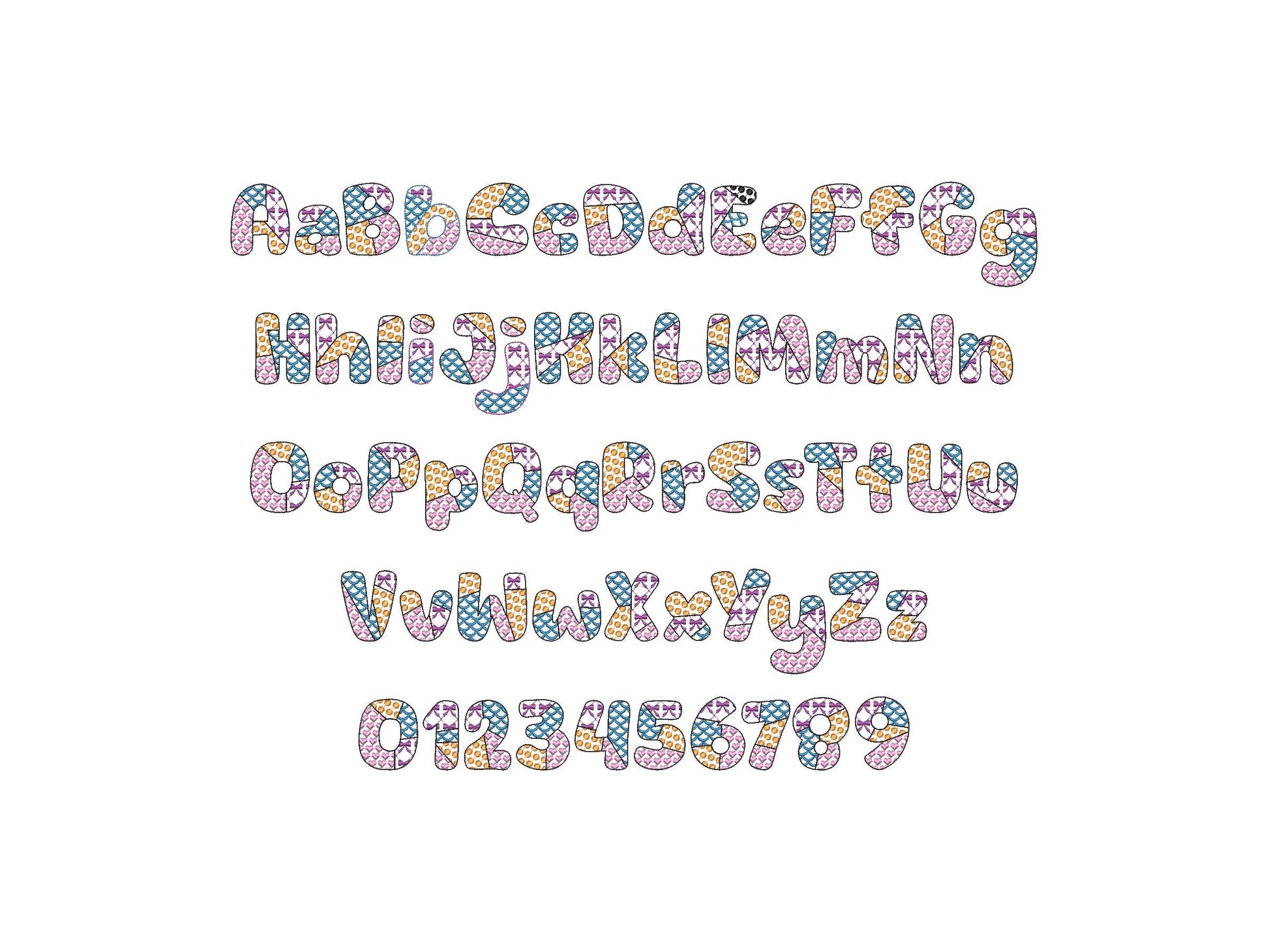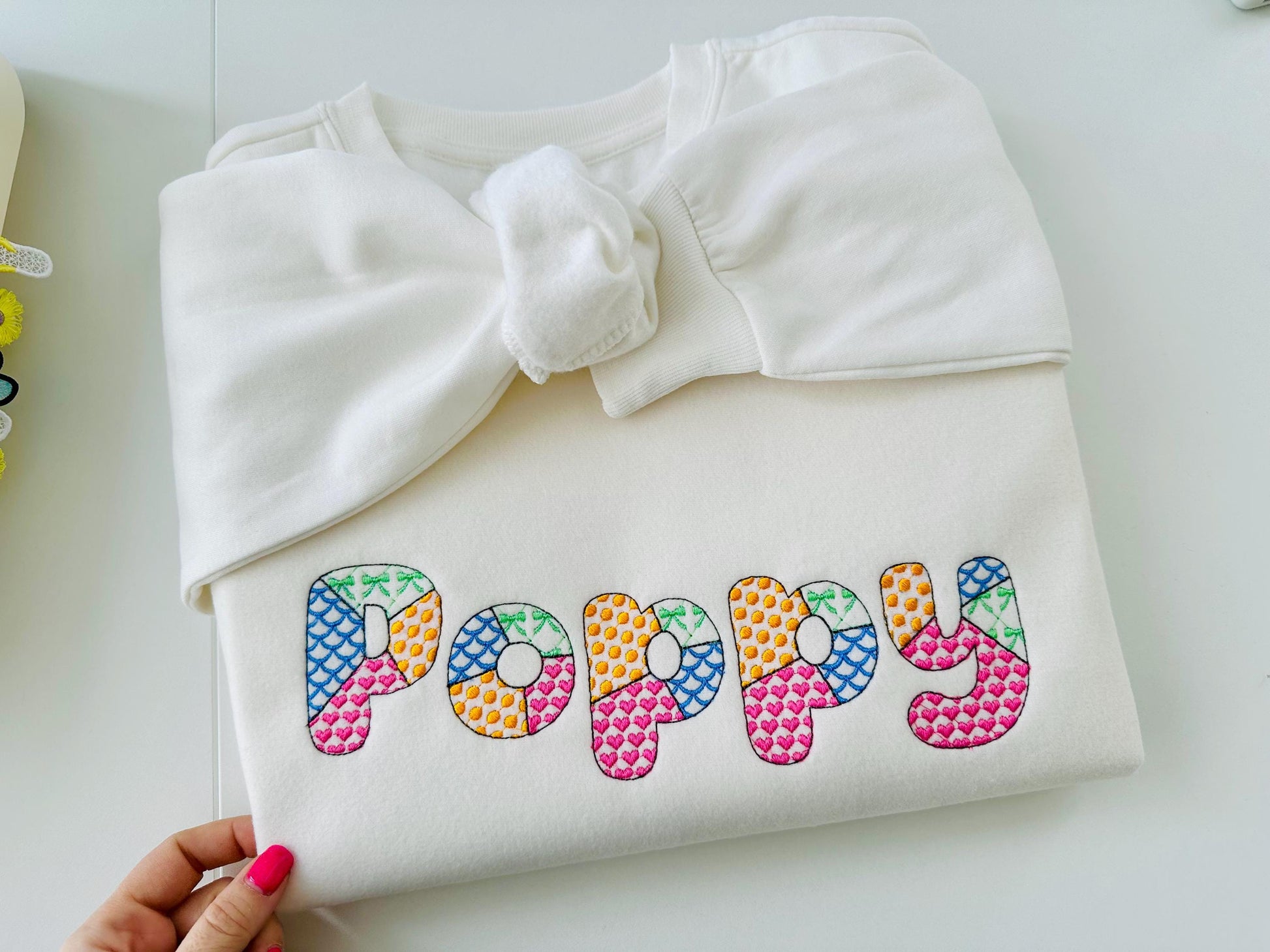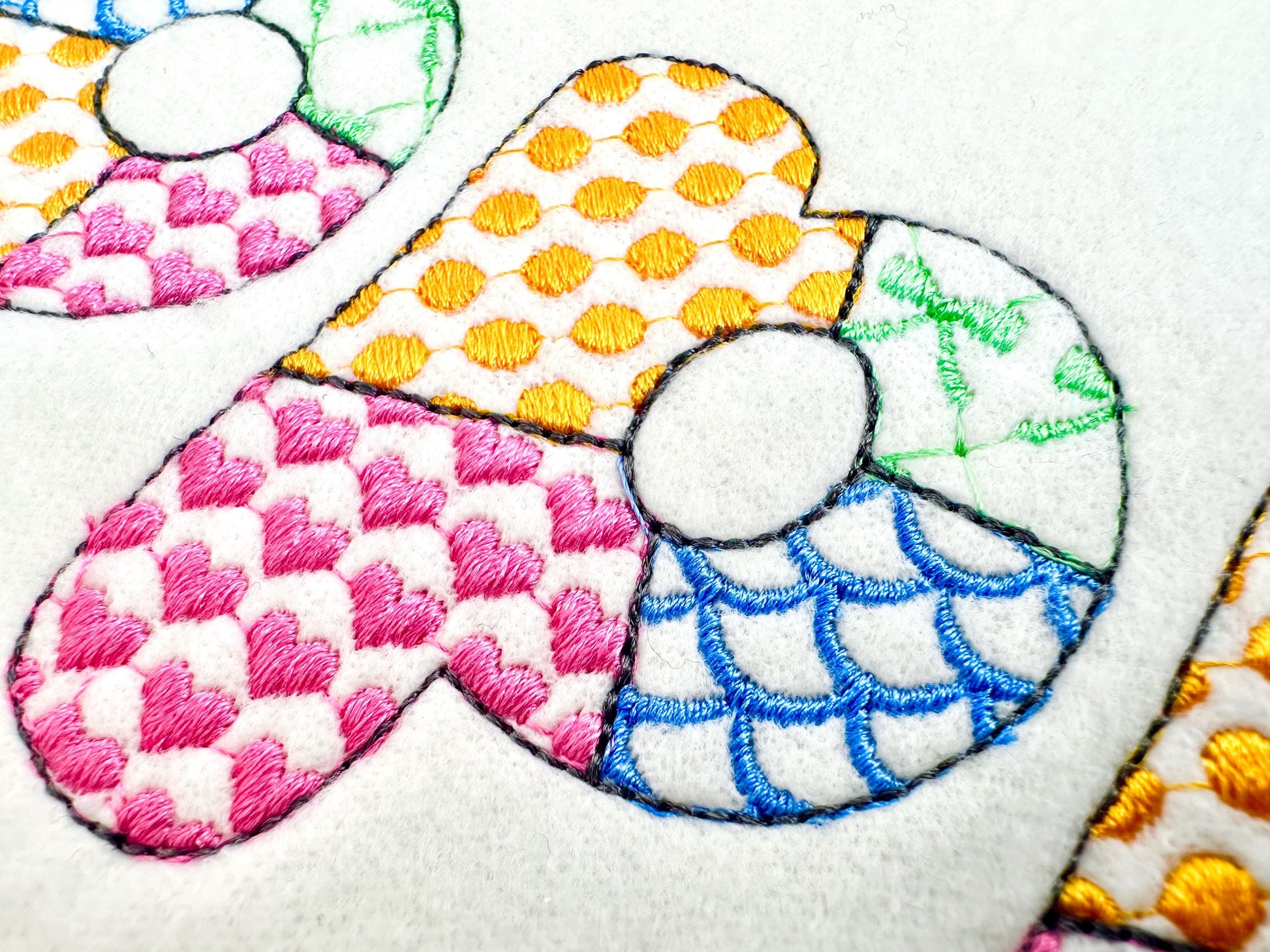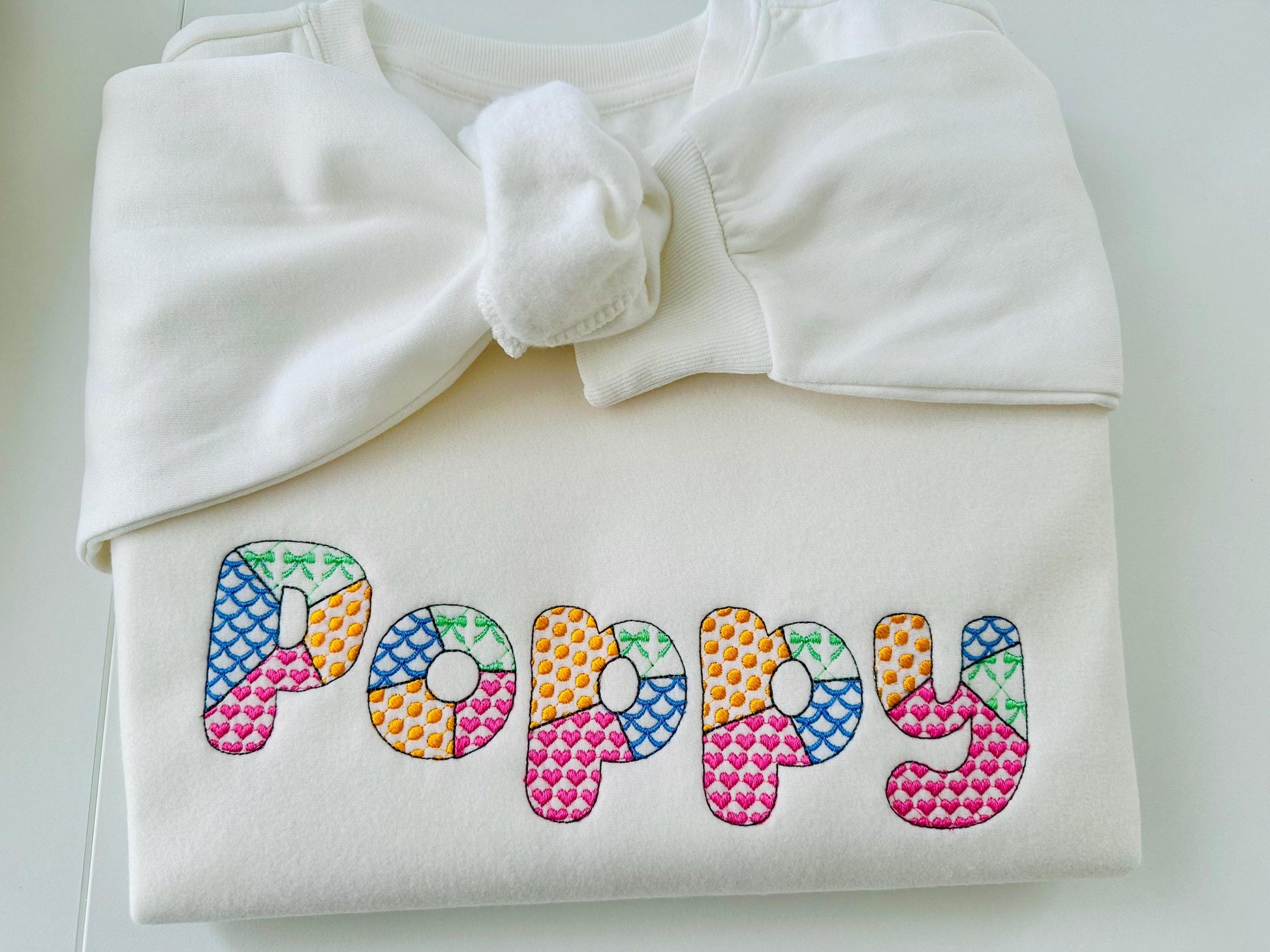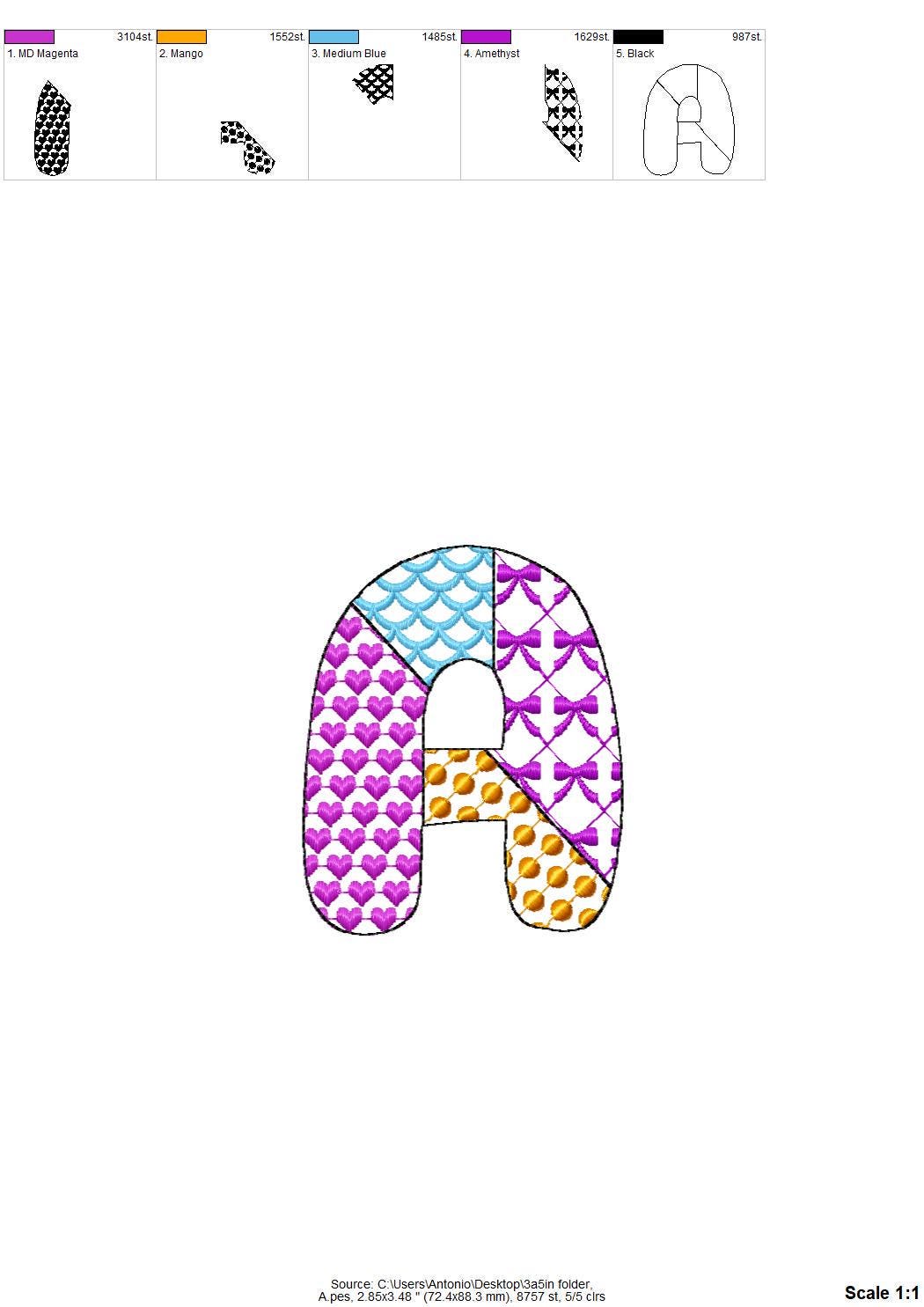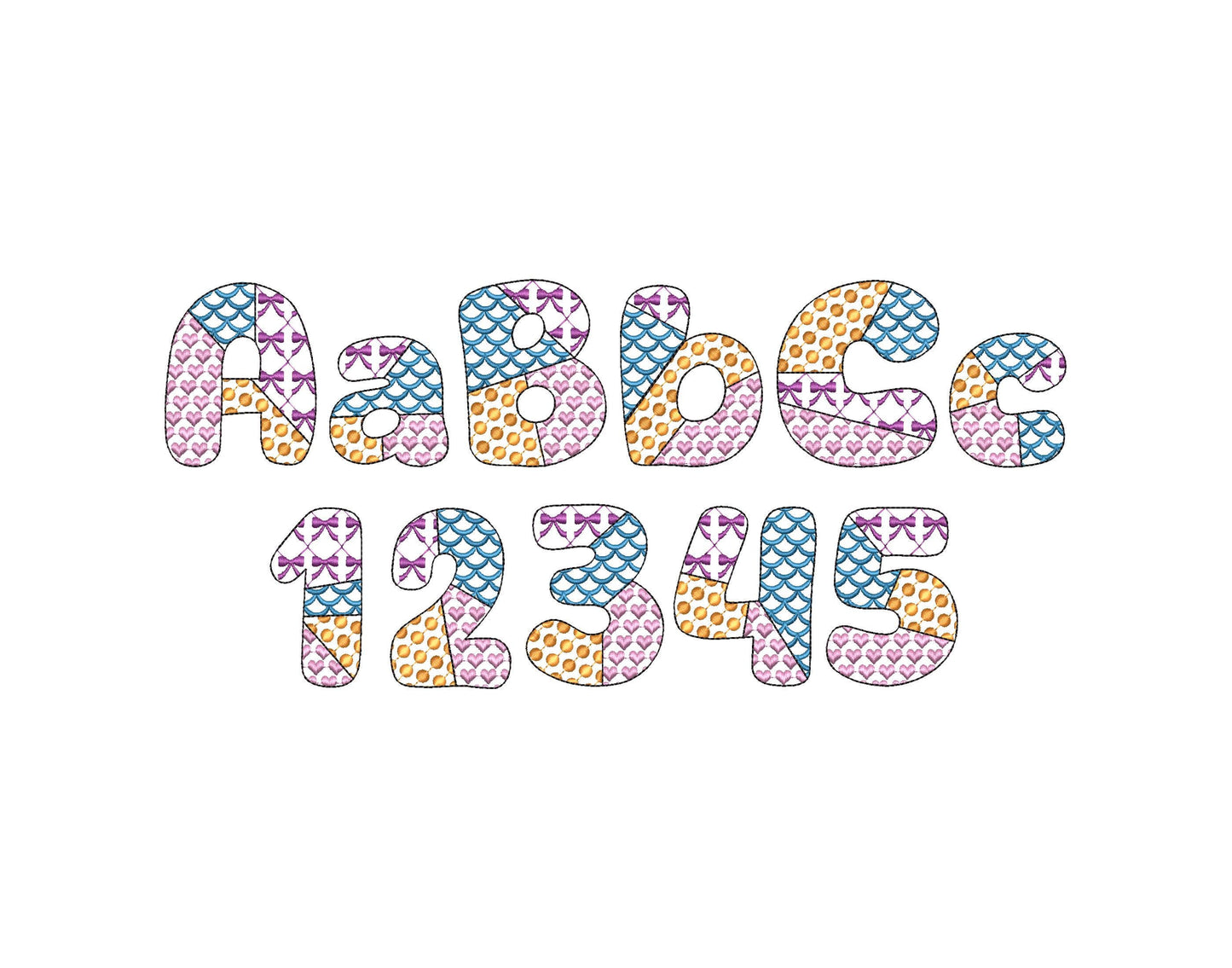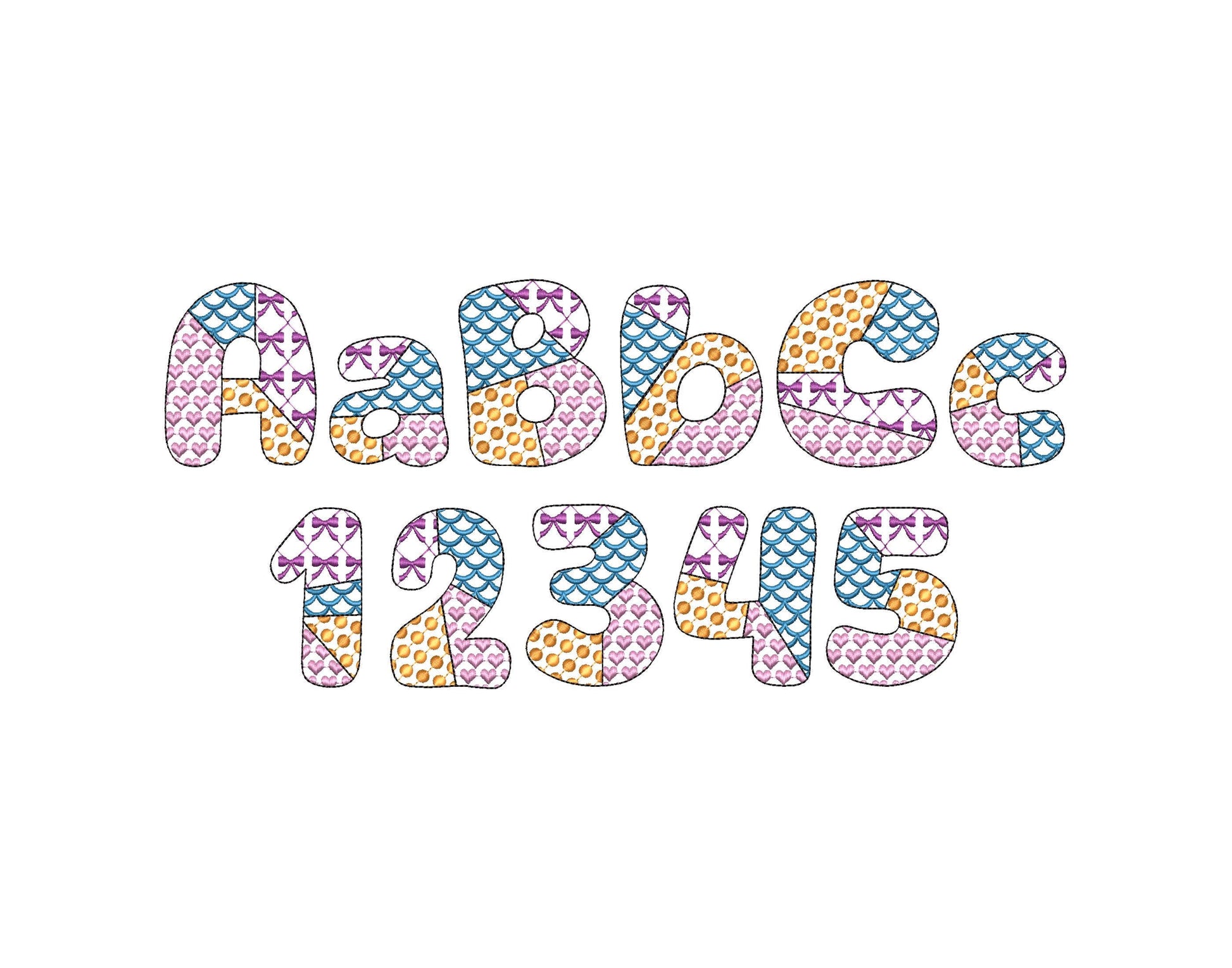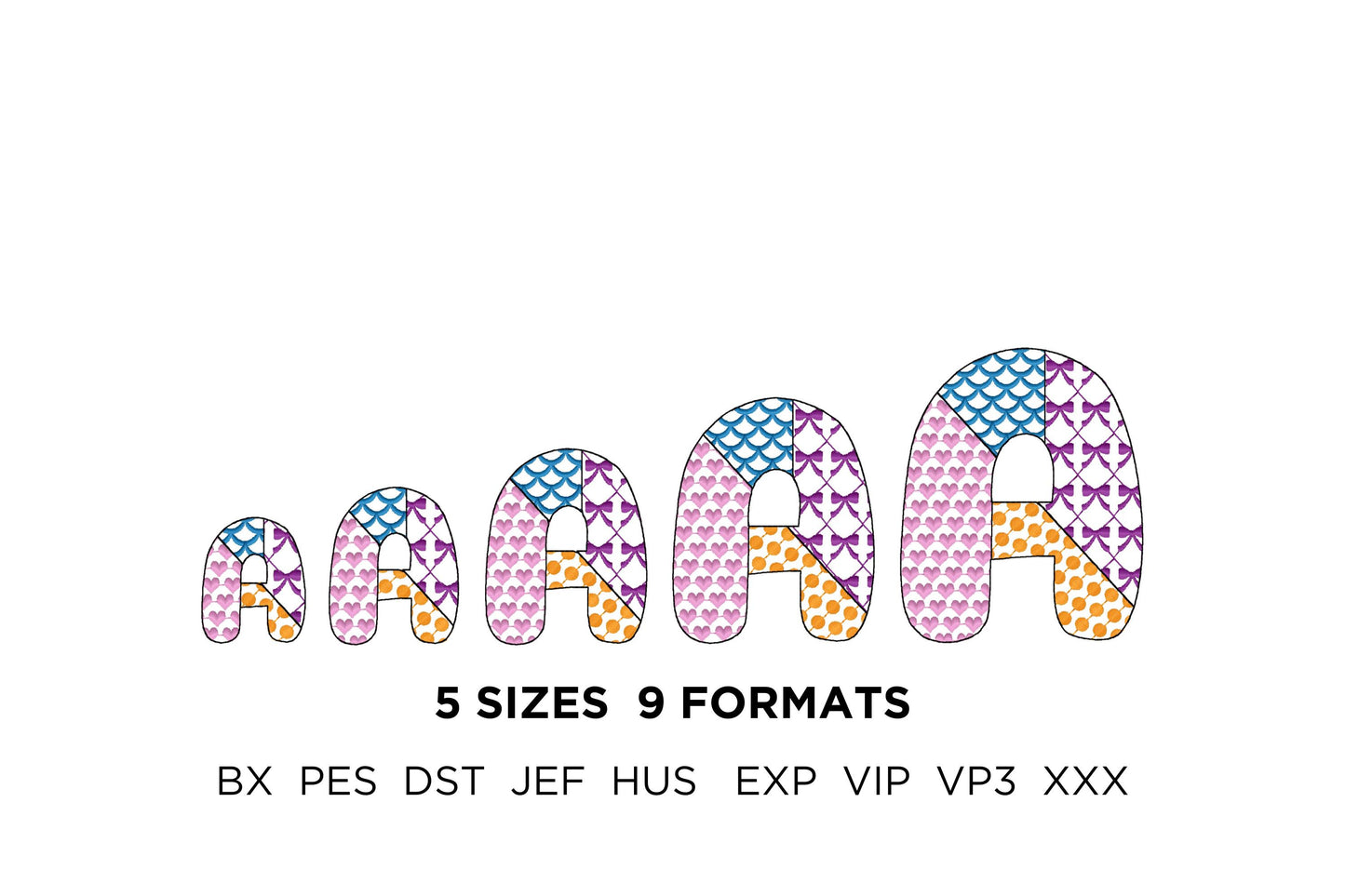
Or click to open the linkA sweet farm folk patchwork font with patterns inside. Lovely for kids' shirts, pillows, tote bags and monograms.
Uppercase and lowercase letters and numbers 0 to 9. Five sizes: 1.8, 2.2, 2.8, 3.5 and 4.2 inches. The patterns are stitched inside an outline and the fabric shows through.